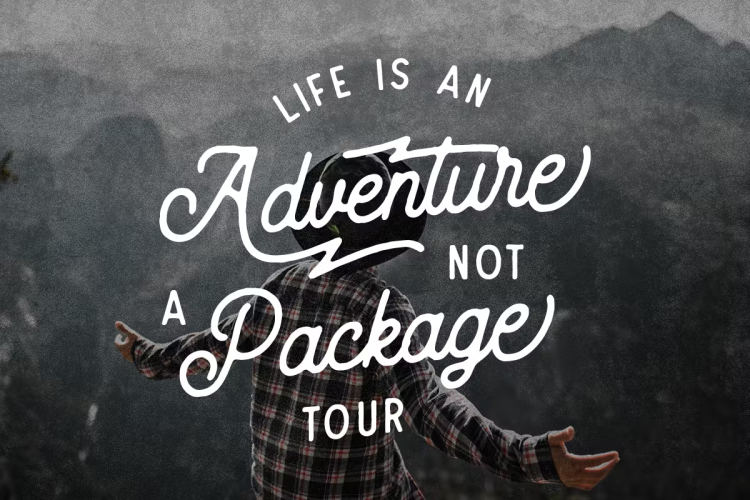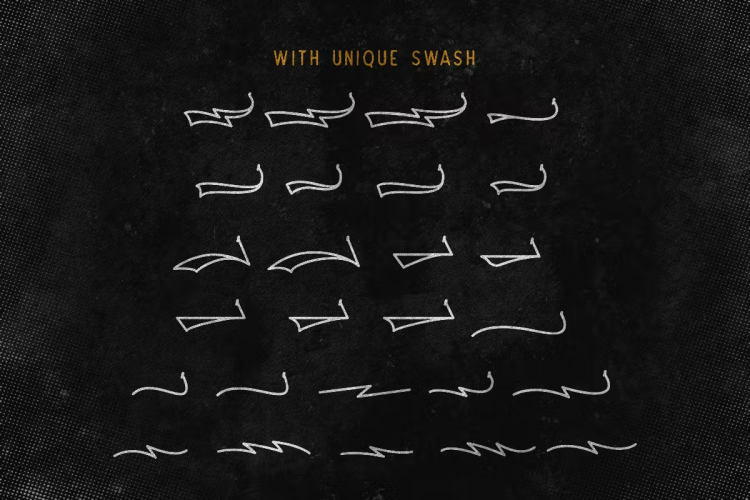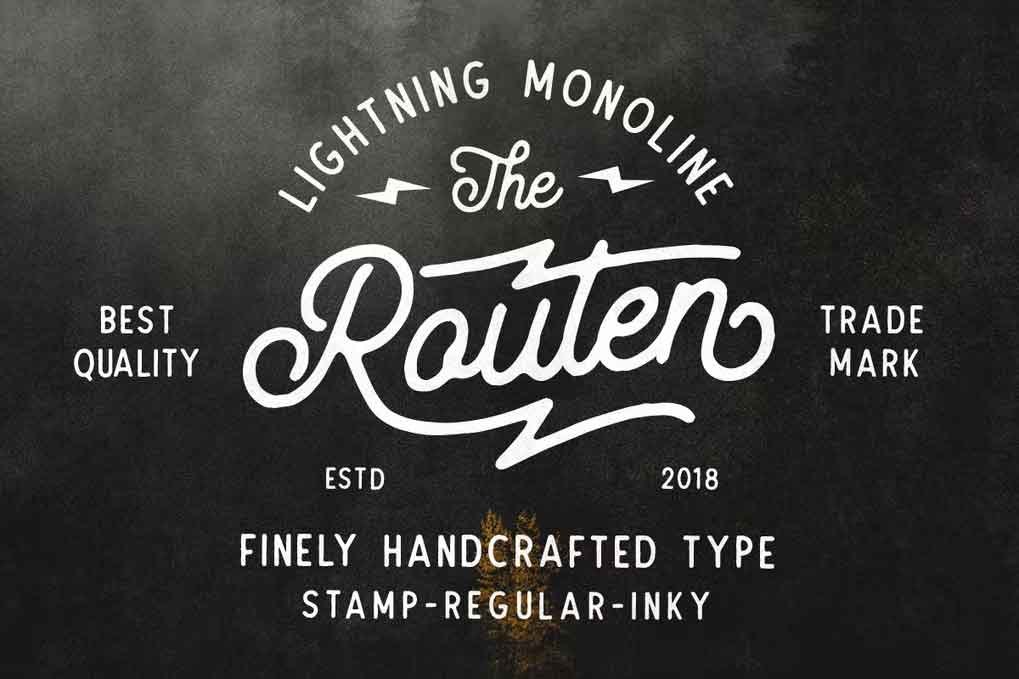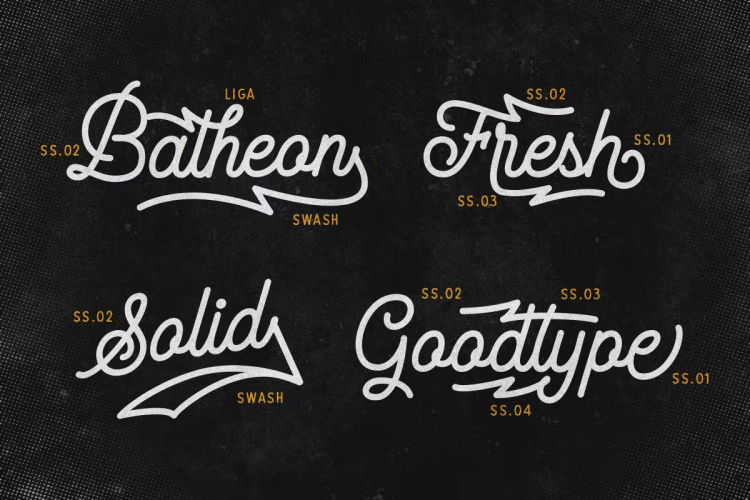
Routen Lightning Monoline Font
Please introduce, Routen. A Vintage monoline with lightning swash! monoline vintage script typeface which is created with many features such as ligatures, stylistic set alternate, swashes, etc with total 350++ GLYPHS! which is obviously support multi language characters! Provided in both OTF and TTF.
Multilingual Support support many different languages 20+ .
Special Character Also added some special character you can check in the picture.
Routen Lightning Monoline Font is a Script And Handwritten font that brings a professional and versatile look to your projects. Please introduce, Routen. A Vintage monoline with lightning swash!.